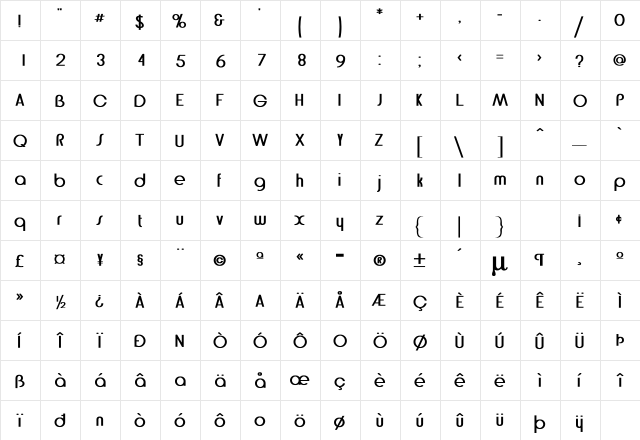
Bethel Bold
Design Context for Bethel Typeface
Bethel offers clean, dependable letterforms without strong stylistic allegiance, making it a practical choice for designers who need flexibility. Its bold stroke weight gives it real presence on the page.